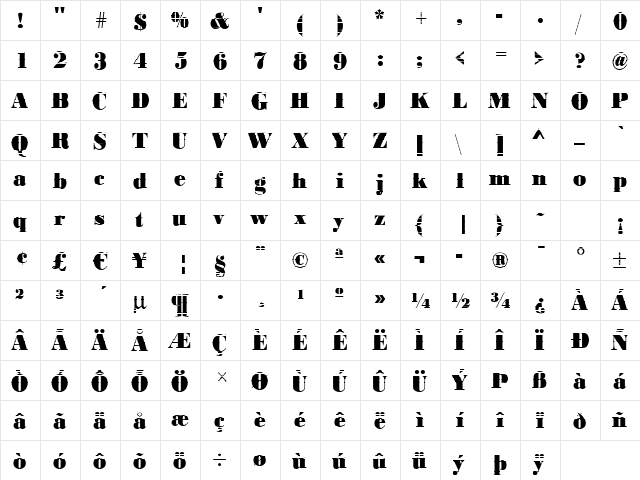
BodoniInkjet Regular
Design Context for BodoniInkjet Typeface
BodoniInkjet takes a measured approach to typography — its balanced proportions and neutral character make it a reliable workhorse for both digital and print work.
Pro Tip: Use BodoniInkjet in both headline and body roles to test its range before committing to a single application.